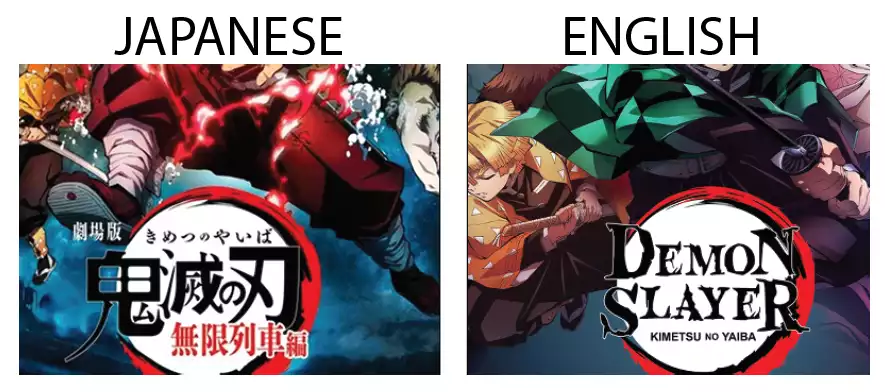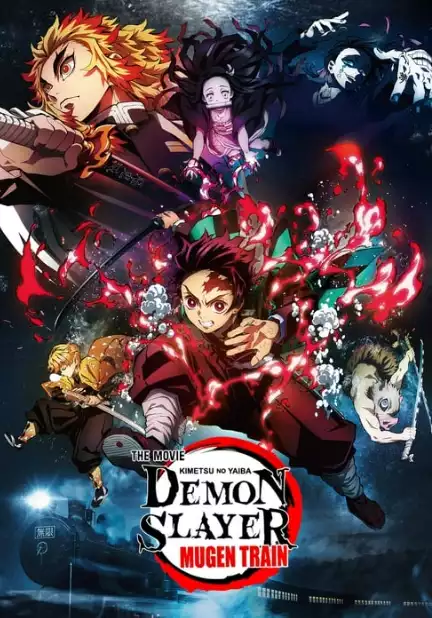
Looking for the Demon Slayer font? In this wave of animated movie hype, “Demon Slayer” has made its way all over the world. Even the logo font itself has a perk of its own. As most of you anime fans are aware, there is a Japanese manga series called Demon Slayer: Kimetsu no Yaiba that has also been made into a movie. Due to its popularity, the logo lettering for the movie has become very popular.
Many fans and designers want to know and use the font in their design projects. So, we will discuss the Demon Slayer font in detail, including its design and how to obtain it.
What font does the Demon Slayer use?
The Demon Slayer font is inspired by the animated dark fantasy action film “Demon Slayer: Kimetsu no Yaiba the Movie: Mugen Train.” The font uses a modified version of a fan typeface called Blood Crow.
The Blood Crow fancy display font was designed by Daniel Zadorozny and released by Iconian Fonts (USA). It was first released in 2009, and it is a cleaner version of Blood Crow Condensed.
Font Features and Characteristics
This fancy horror font is a spooky and unique typeface that can be used for personal projects. It comes in an array of 11 different styles, including regular, italic, condensed, expanded, and various shadow and leftalic versions, making it versatile for any design.
What is the Demon Slayer logo?
The Demon Slayer logo is the emblem used to represent the manga and anime series Demon Slayer: Kimetsu no Yaiba. The logo consists of simple geometric shapes or text. The logo evokes a sense of foreboding and horror and is associated with the imagery of monsters and fighting back against them. It also has red and black colors, which can be associated with things like passion and sophistication in the branding world.
The logo is reminiscent of scary, bloodthirsty monsters that come out to hunt when the moon appears. The Demon Slayer Mark is an enigmatic supernatural mark that can be unlocked and may appear on the body of a powerful demon slayer. The most talented Demon Slayers of the Demon Slayer Corps have a chance to develop a mysterious tattoo, scar, or birthmark marking. It resembles the demon crests that appear on the bodies of most demons.
Use Cases for this Font
The Demon Slayer font can be used in a variety of ways to create an eerie or unsettling atmosphere. Some potential use cases include:
Halloween invitations and decorations: The spooky design of the font can be used to create invitations, posters, and decorations for Halloween events.
Horror movie posters and book covers: The twisted design of the font can be used to create posters and book covers for horror movies and books.
Video game and app design: The font can be used to create a spooky atmosphere in video games and apps, such as survival horror games.
Graphic design projects: The font can be used to create unique and eerie designs for graphic design projects, such as logos, posters, and advertisements.
Social media posts and website design: The font can be used to create an eerie atmosphere in social media posts and website design, such as Halloween promotions and events.
The font’s unique design and various styles make it a versatile tool for creating a spooky atmosphere in a variety of projects.
Font Family
- Blood Crow
- Blood Crow Italic
- Blood Crow Condensed
- Blood Crow Condensed Italic
- Blood Crow Expended
To Conclude
The Demon Slayer font is a unique and spooky typeface inspired by the animated dark fantasy action film. It is based on a modified version of a fan typeface called Blood Crow. The font may give your project a horrifying or eerie appearance, which may be required by your project.